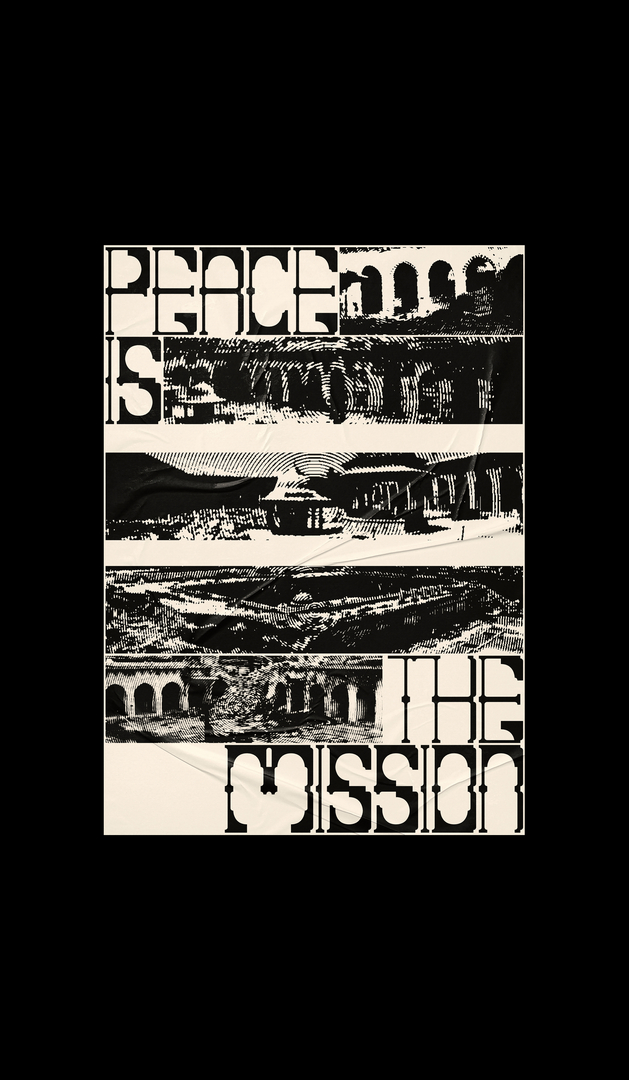
The Damascus Modular Typeface
The Damascus Modular Typeface is based on the characteristics of the Umayyad Mosque in Damascus, Syria. The ancient mosque is particularly known for the columns in its courtyard. For the type project, the shapes of these columns were deconstructed and turned into a modular grid system. As a result, positive and negative forms reflect the domes of the mosque, while ornamental letter connections create the impression of arcades. While the mosque is surrounded by chaos of war today, the typeface is intended to give an idea of what the city of Damascus is truly about: the majestic splendour of Islamic architecture.